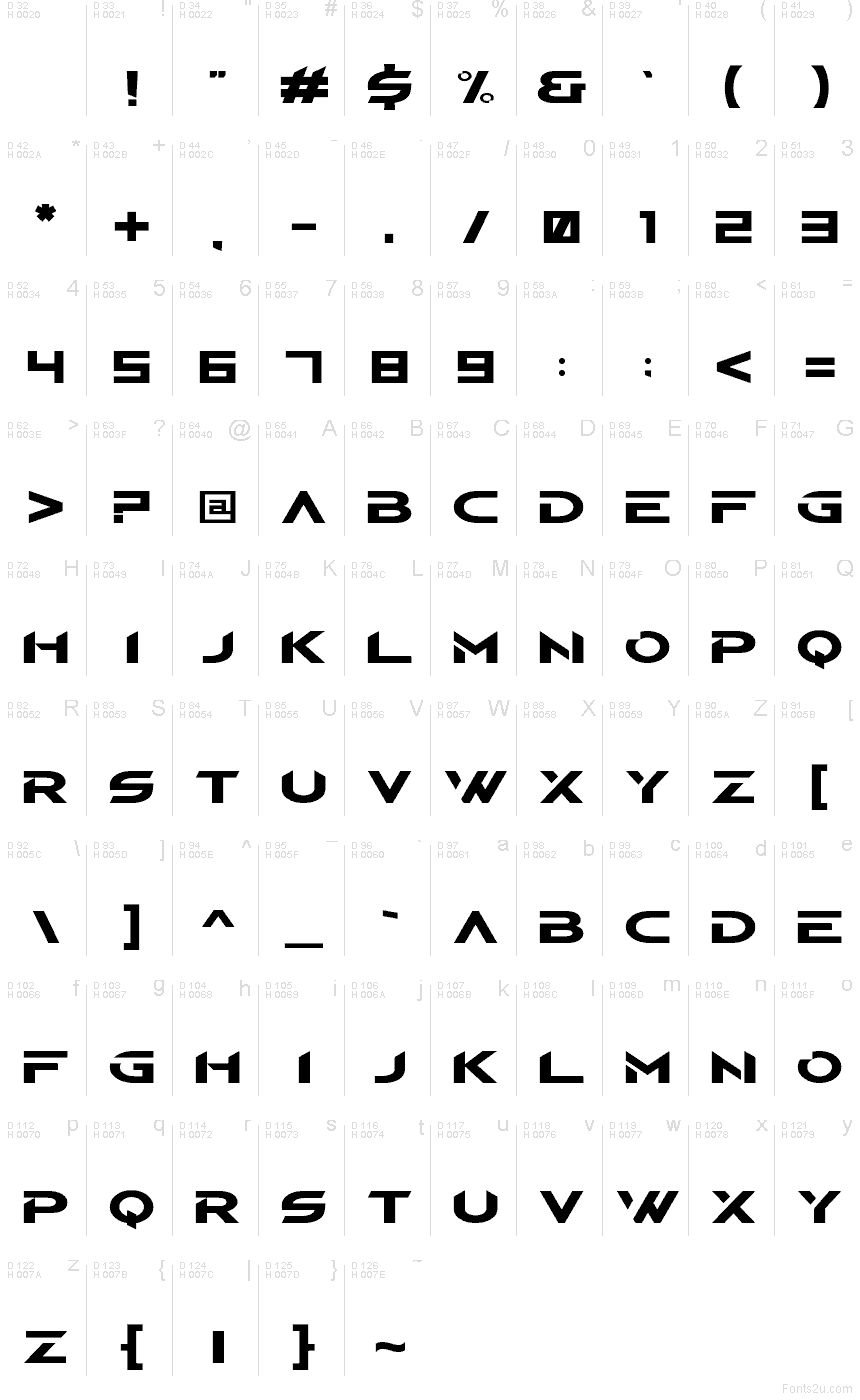
MODERN WARFARE
Modern Warfare font by MaknaStudio is a free futuristic display typeface that feels ripped straight from a sci‑fi battle HUD. Its sharp, angular cuts and tight geometric rhythm create a sense of motion and tension, like metal plates locking into place. The wide stance and sliced corners make every word look like a logo, giving your titles a tough, high-tech edge without sacrificing readability at larger sizes.
Using Modern Warfare font, you can lock in a cohesive look for game logos, esports team branding, Twitch overlays, movie posters, tech merch, and sci‑fi book covers. This free font shines when you set it big and bold, letting the aggressive diagonals and clean spacing do the heavy lifting. For supporting text, pair it with a simple, neutral sans serif and keep that secondary font lighter in weight to let Modern Warfare command the spotlight.